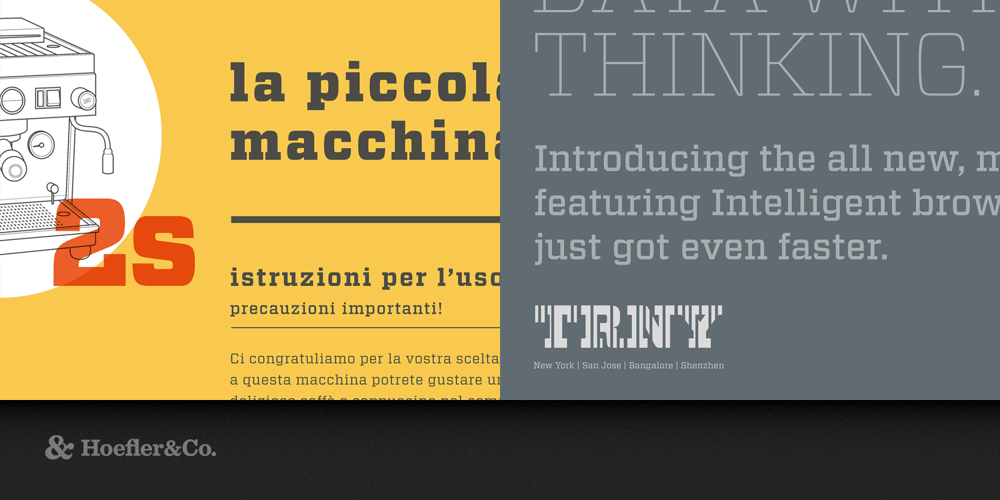
Vitesse Font Family was designed by Jonathan Hoefler and published by Hoefler & Co.. Vitesse contains 12 styles and family package options. Engineered for responsive handling and a sporty ride, Vitesse is confident and stylish in any situation. The Vitesse typeface was designed by Jonathan Hoefler in 2000. Unlike ‘geometric’ slab serifs based on the circle, or ‘antique’ ones based on the ellipse, the central motif of the Vitesse typeface is a soft-cornered barrel shape that affords opportunities for both long straightaways and quick turns. Initially a commission from Esquire, in whose pages the typeface first appeared in 2000, Vitesse was expanded into a larger family for Wired magazine in 2006, and supplemented by a companion sans serif, Forza. From the desk of the designer: Many of the typefaces we know the best, and use the most, are those whose foundations are centuries old. The typographic models that have survived the longest are those that have proven most adaptable: the Antique species of slab serif may be two hundred years old, but its formula is flexible enough to allow constant reinterpretation. Our Sentinel typeface was based on this nineteenth century genre, just as our Archer typeface was based on a twentieth century invention, the Geometric slab serif. Both are vibrant and living models, yet they invite a third option: the twenty-first century slab serif. Our exploration into new kinds of slab serif began with a study of slab serifs past. Noting that nineteenth century designs were based on the ellipse, and twentieth century ones on the circle, we wondered what other geometries might prove similarly fertile, and were inexorably drawn to the rounded rectangle. Surprisingly, this attractive and familiar shape, so iconic of both the industrial and digital eras, has seldom been employed typographically as anything more than a novelty. There are customary ways of using rounded rectangles to look quaint, brutal, primitive, or faddish, but no obvious way to use them in the service of a more broadly expressive typeface. Since all rectilinear typefaces are ultimately a struggle between letterforms and their geometric underpinnings, our goal was to avoid either obvious endgame — rigidly conforming to the grid, or whimsically abandoning it — and to instead find a way to exploit this tension, turning it into gripping and energetic forms. In developing Vitesse, we outlined the challenges that highly structured typefaces most often encounter. One test of whether a typeface’s recipe is too simple is whether it reduces the letters D and O to the same shape, an obvious (but common) blow to legibility. A typeface is too doctrinaire if it obliterates natural subtleties in the alphabet, such as the grace of the lowercase a, the gentle incline of the figure 5, or the ballet of curves that defines a well-balanced ampersand. A well-planned design program will prevent a font from becoming overgrown, and keep its handsome S and G from becoming lost in a thicket of serifs. And letters like the lowercase f, t, and r, whose compact profiles offer limited space for embellishment, must not become casualties to the design, but instead emerge as the font’s proudest moments. Instead of using the rounded rectangle as a motif, the strategy we devised for Vitesse was to use a more sophisticated shape as its central theme: a modified rectangle with flat surfaces above and below, gently curved sides, and quick turns at the corners. The complexity of these ingredients allows Vitesse to escape the grid when necessary, helping to preserve both the natural poise of intricate letters, and the typeface’s personality throughout its complete range of styles. The design that emerged has many of the qualities of a beloved sports car: Vitesse is agile, steady, suave, confident, and stylish.